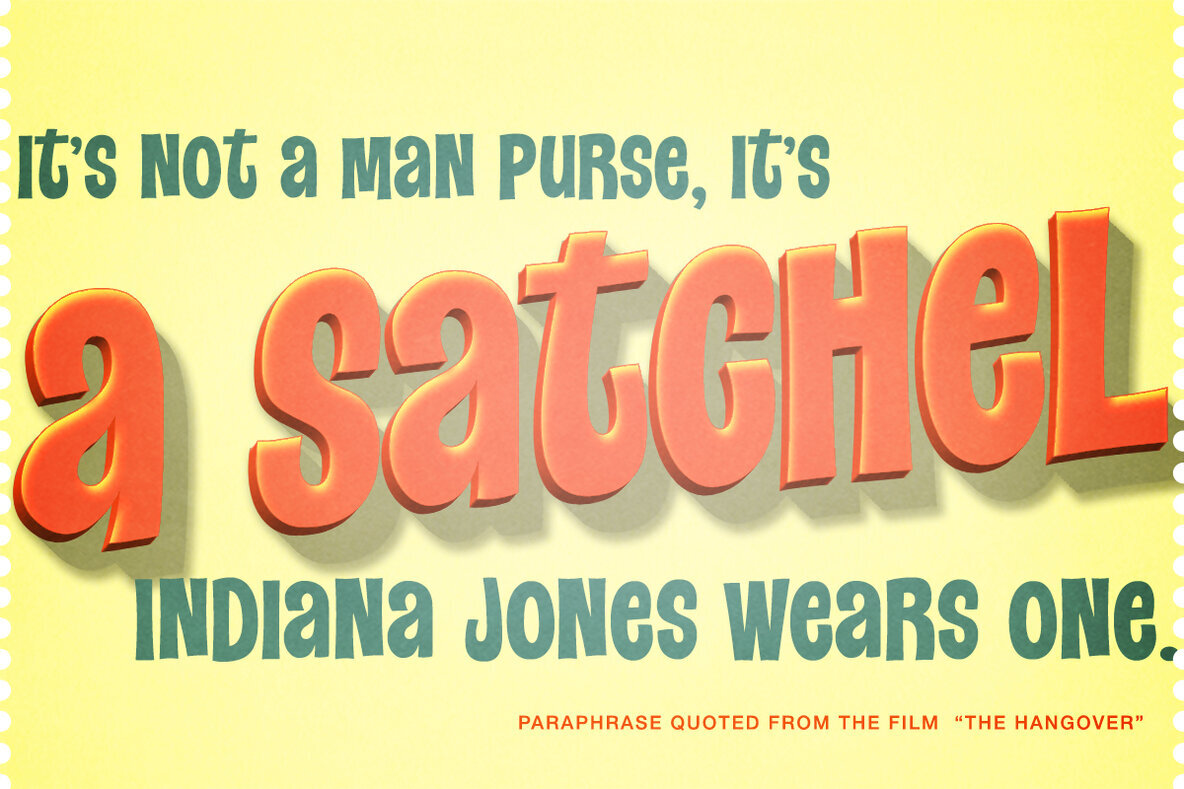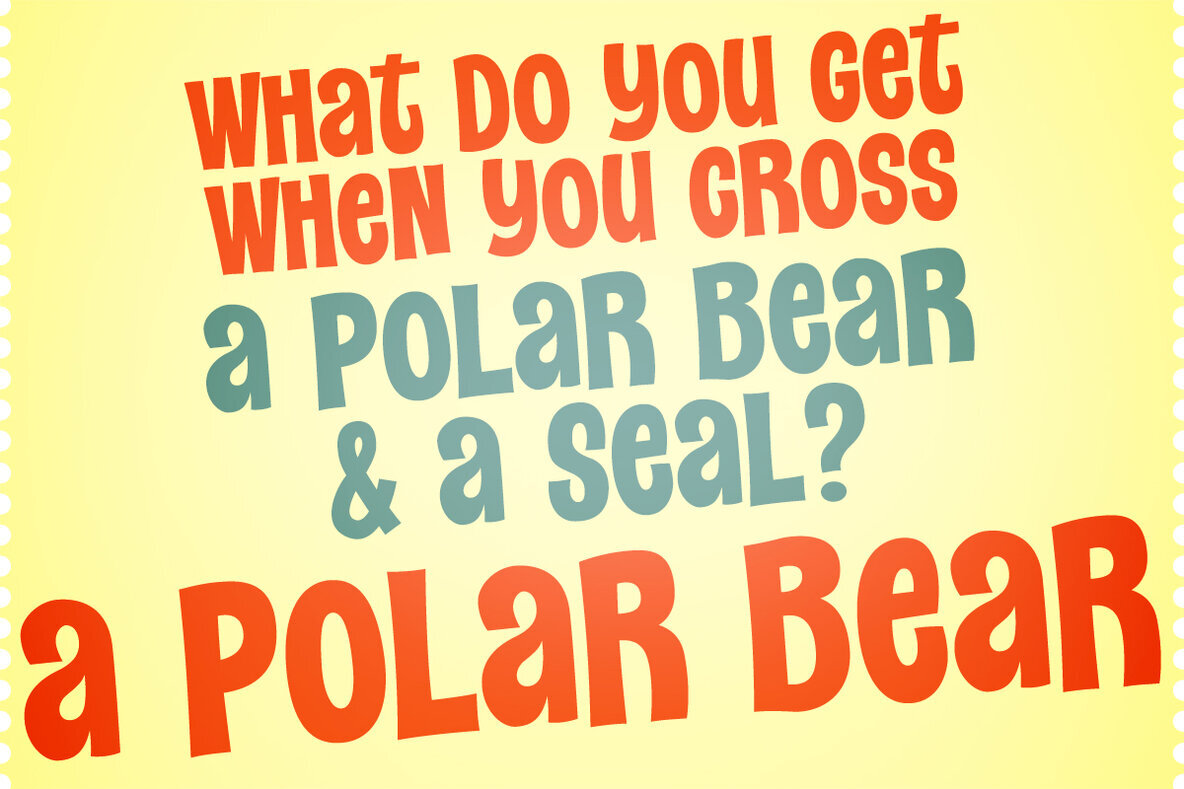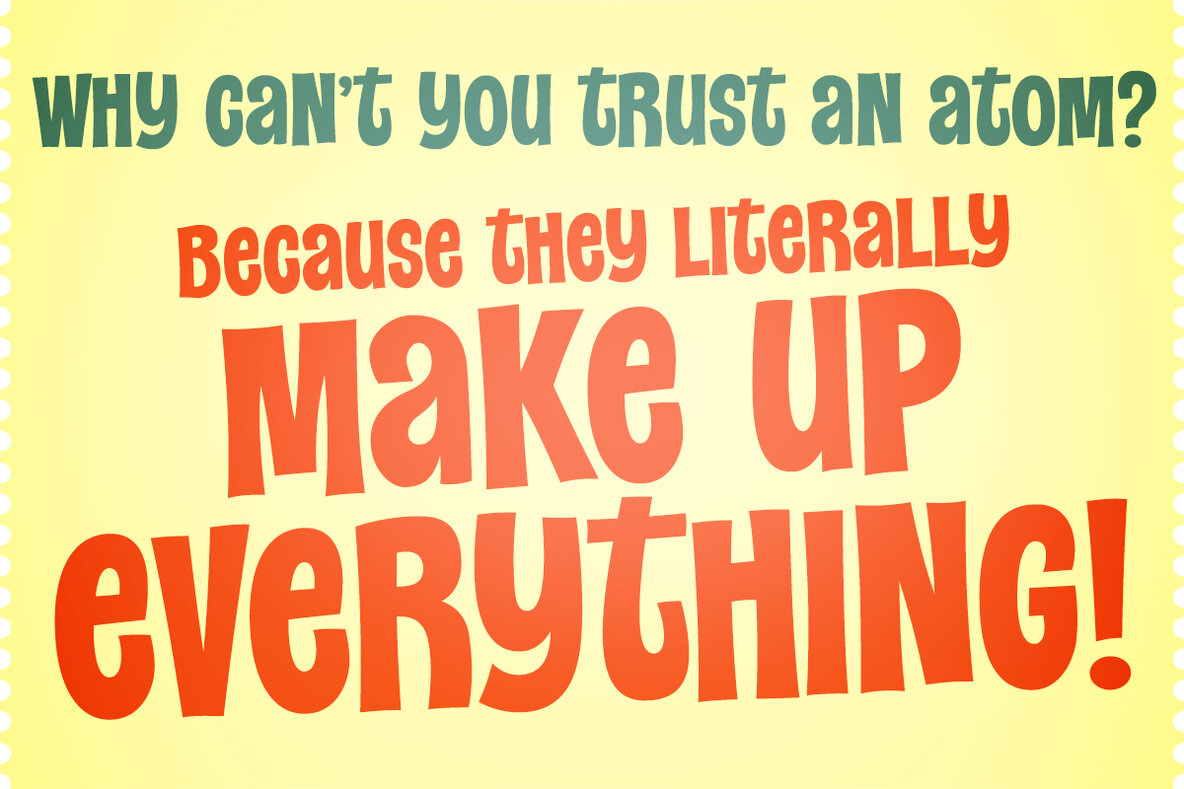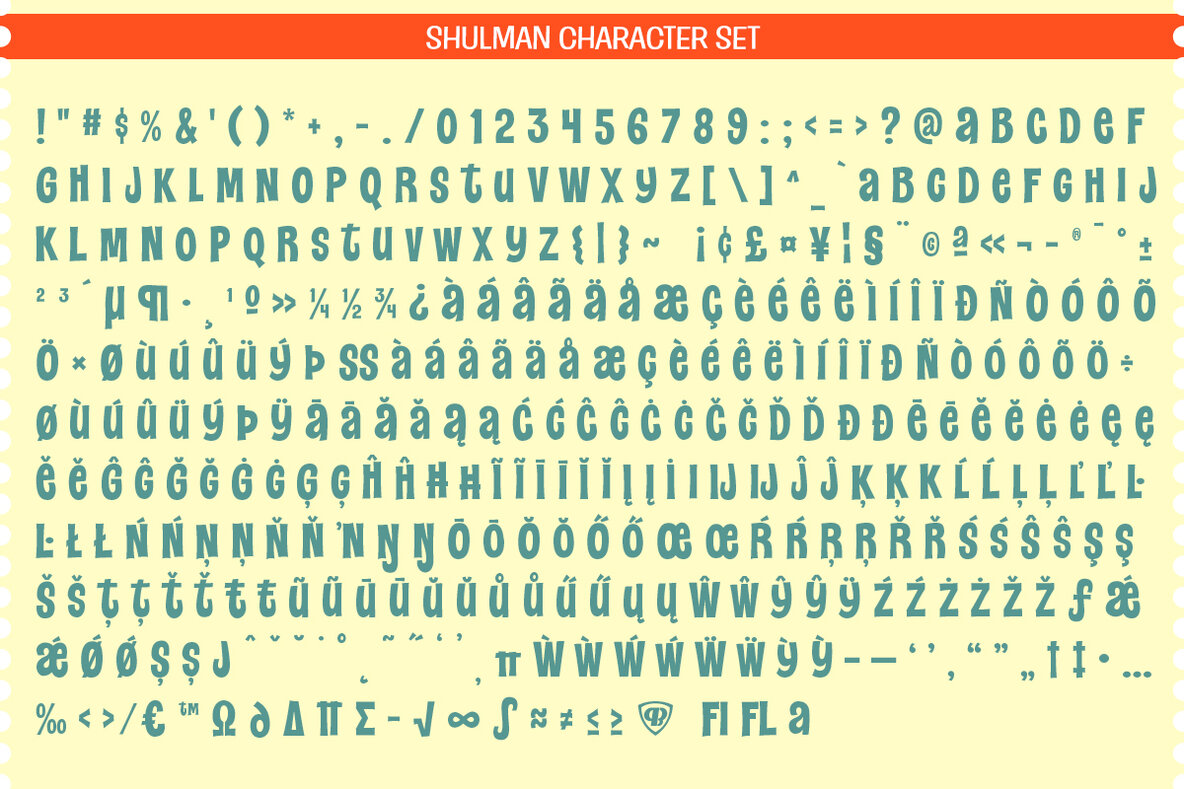
Shulman Font
Shulman PB
Inspired by the whimsical title lettering of Max Shulman's 1965 paperback "Anyone Got a Match?", this typeface exudes a friendly and animated charm. With its unicase styling, it captures the playful essence of mid-20th-century design, creating a tangible connection to an era known for its lively and cheeky typography characteristic of pulp paperbacks. The font embodies a sense of humor and nostalgia that can add a spirited touch to any design project.
This typeface is perfect for projects that require a playful and vibrant atmosphere. Its unique personality can enhance book covers, posters, and any graphic work that aims to evoke a sense of fun and retro flair. The distinctive style not only lends a nod to the past but also injects a dynamic energy into contemporary designs, making it a great choice for designers looking to make a bold, creative statement.